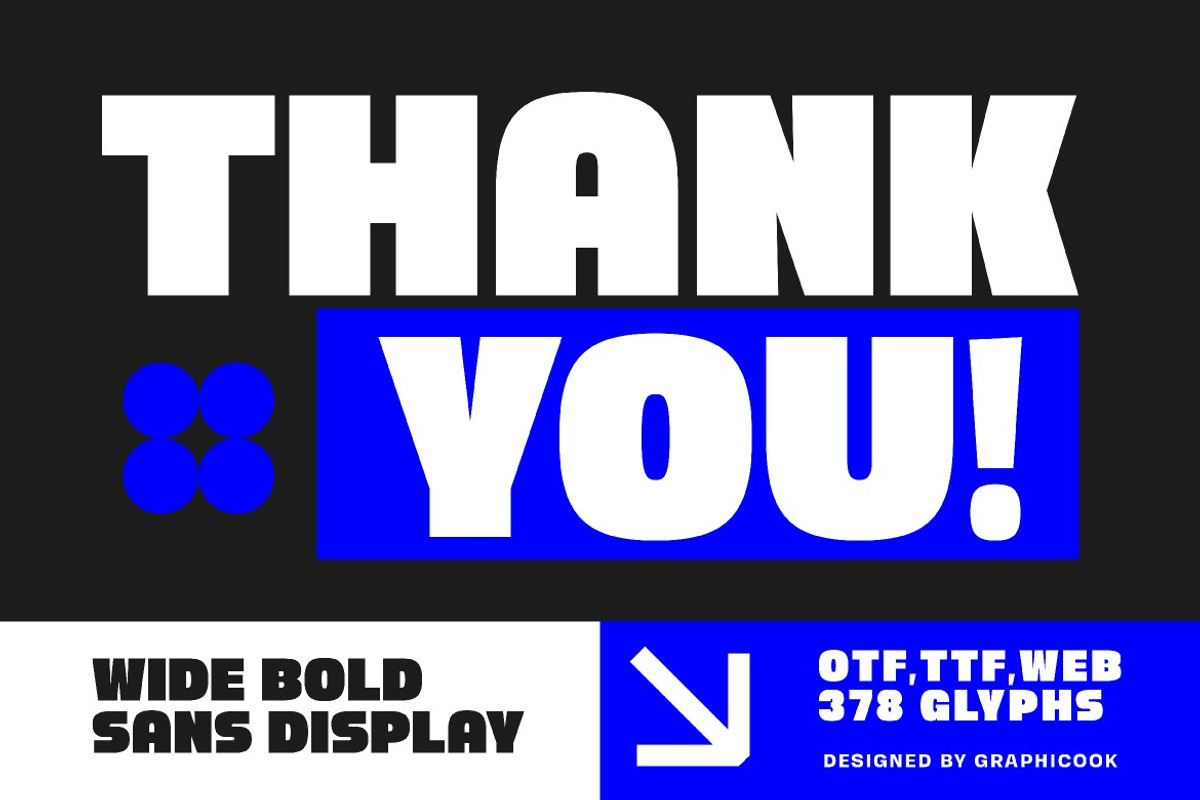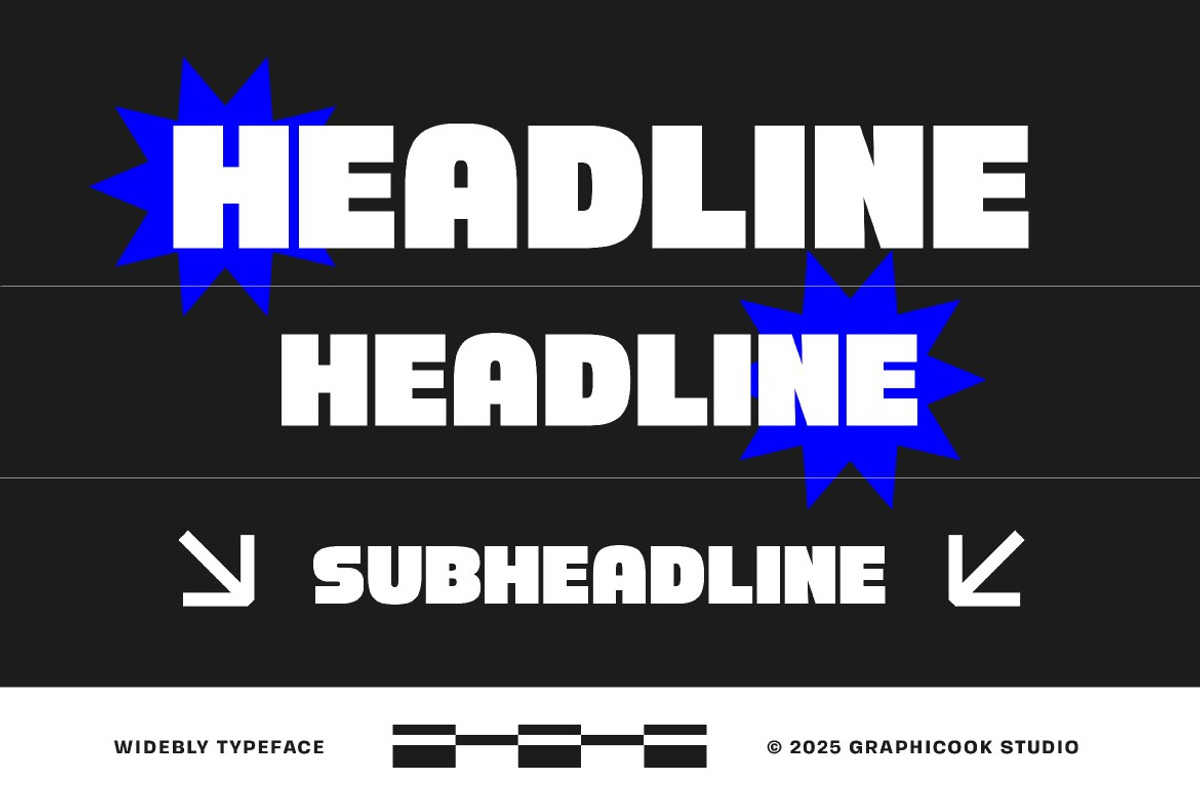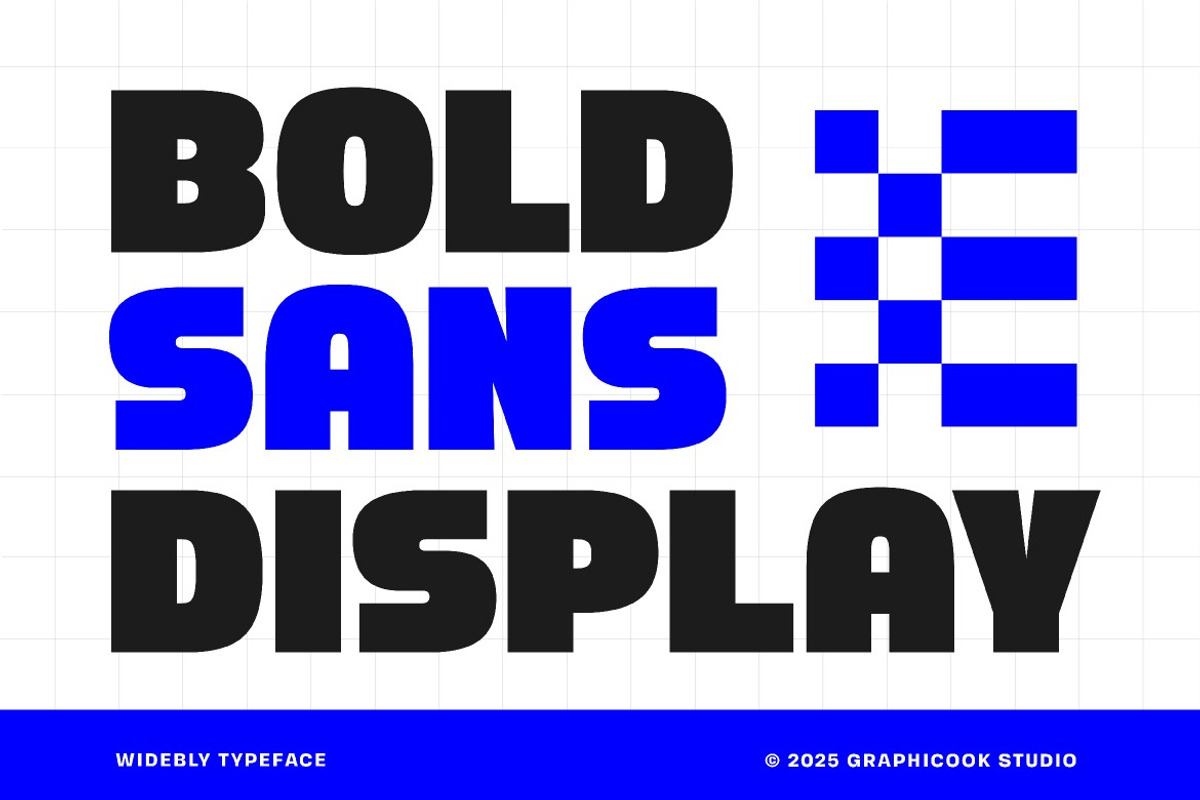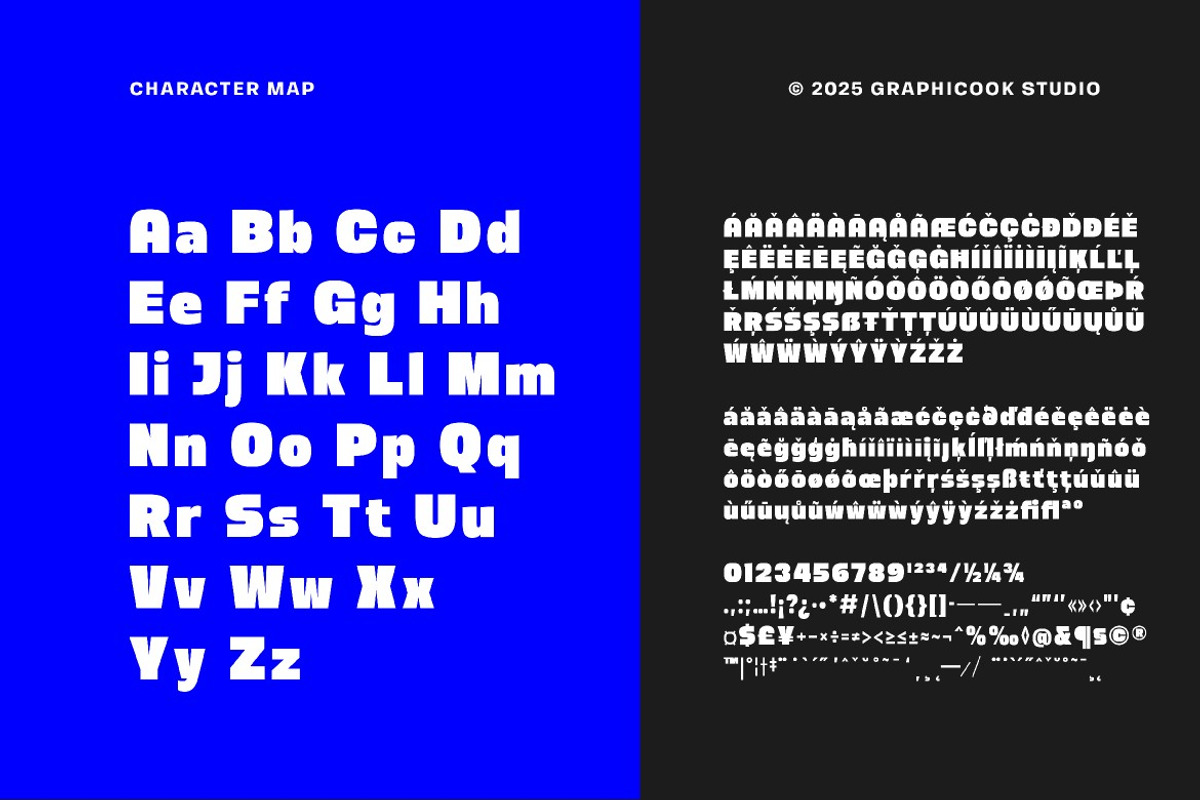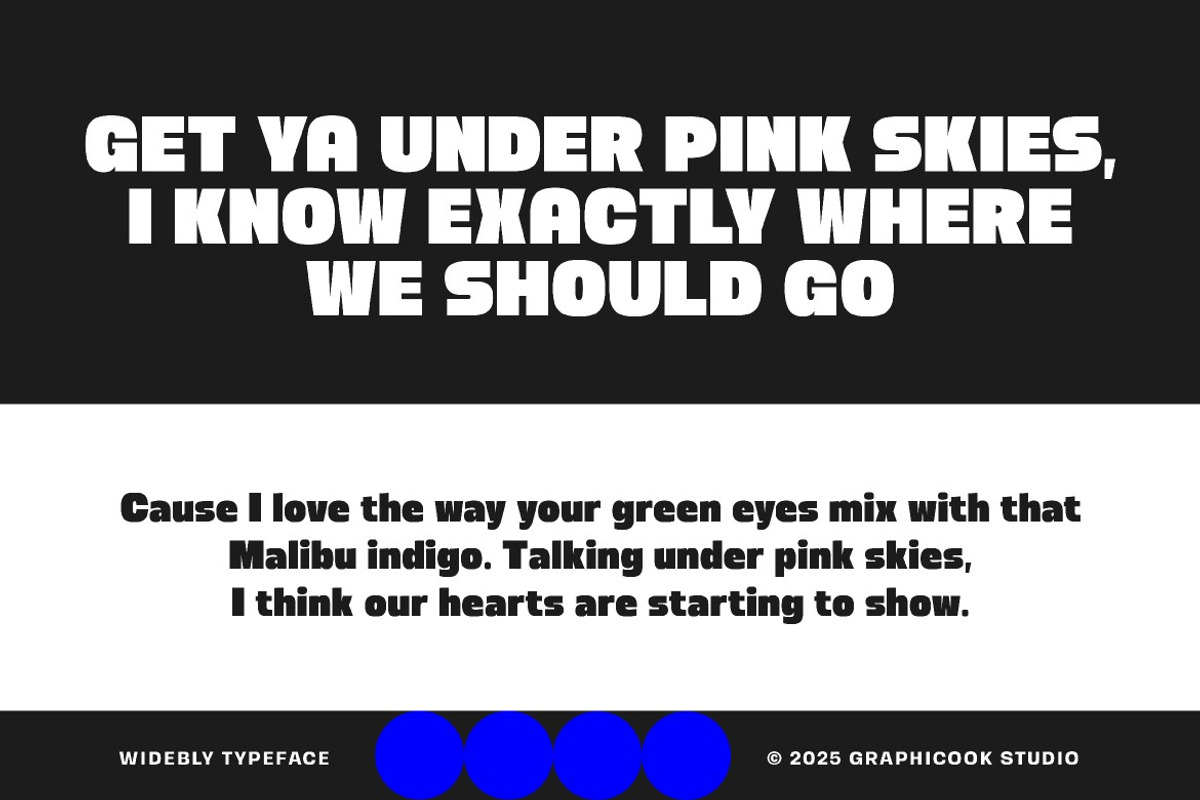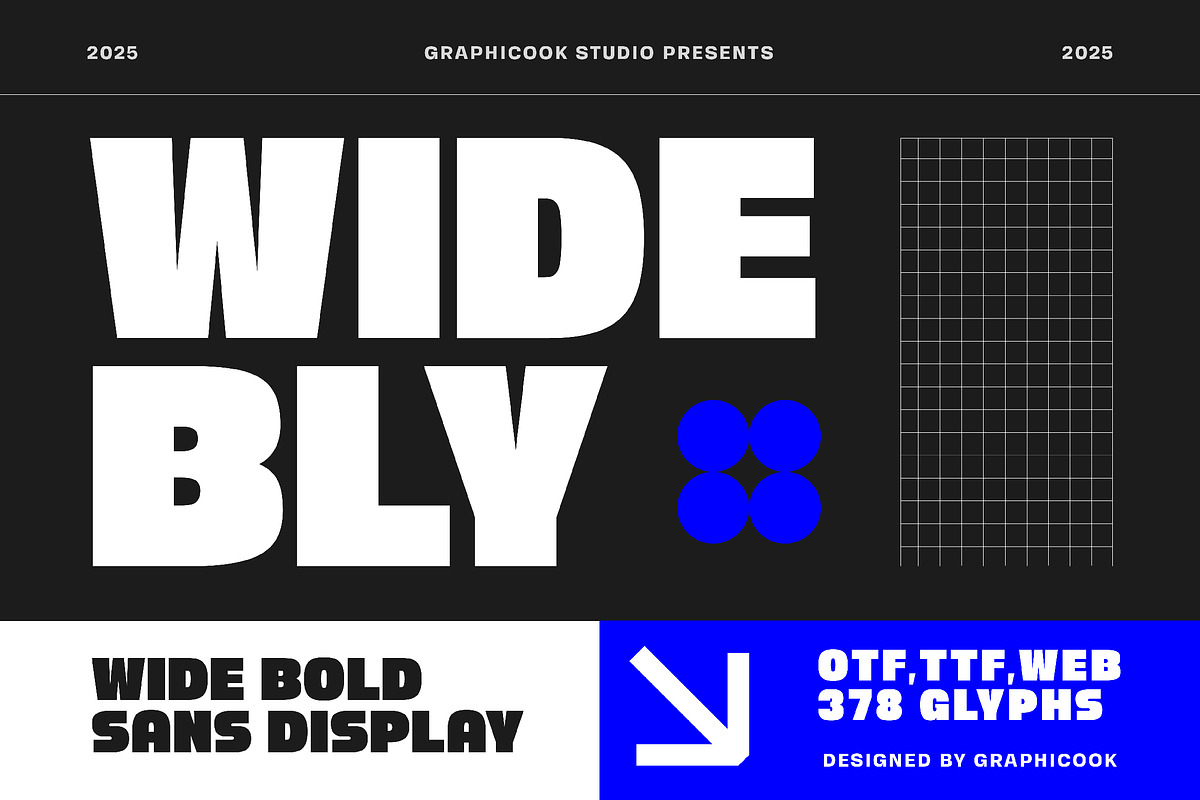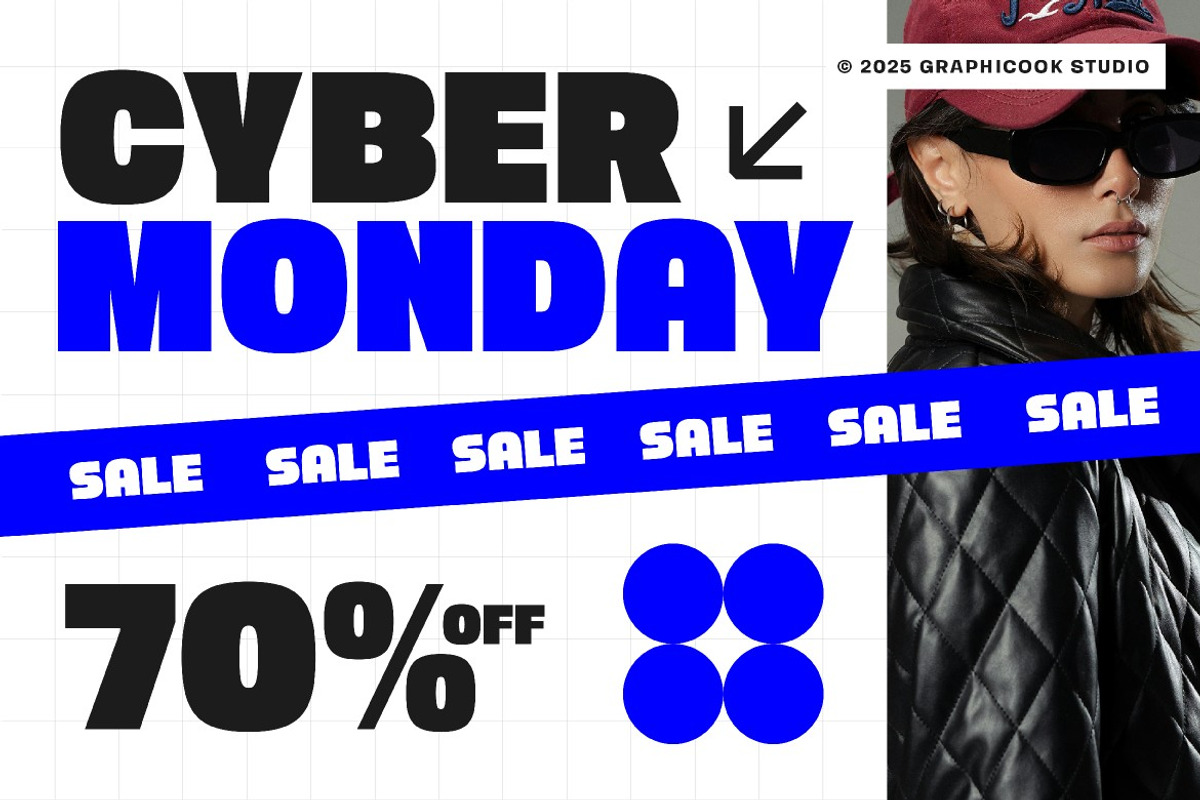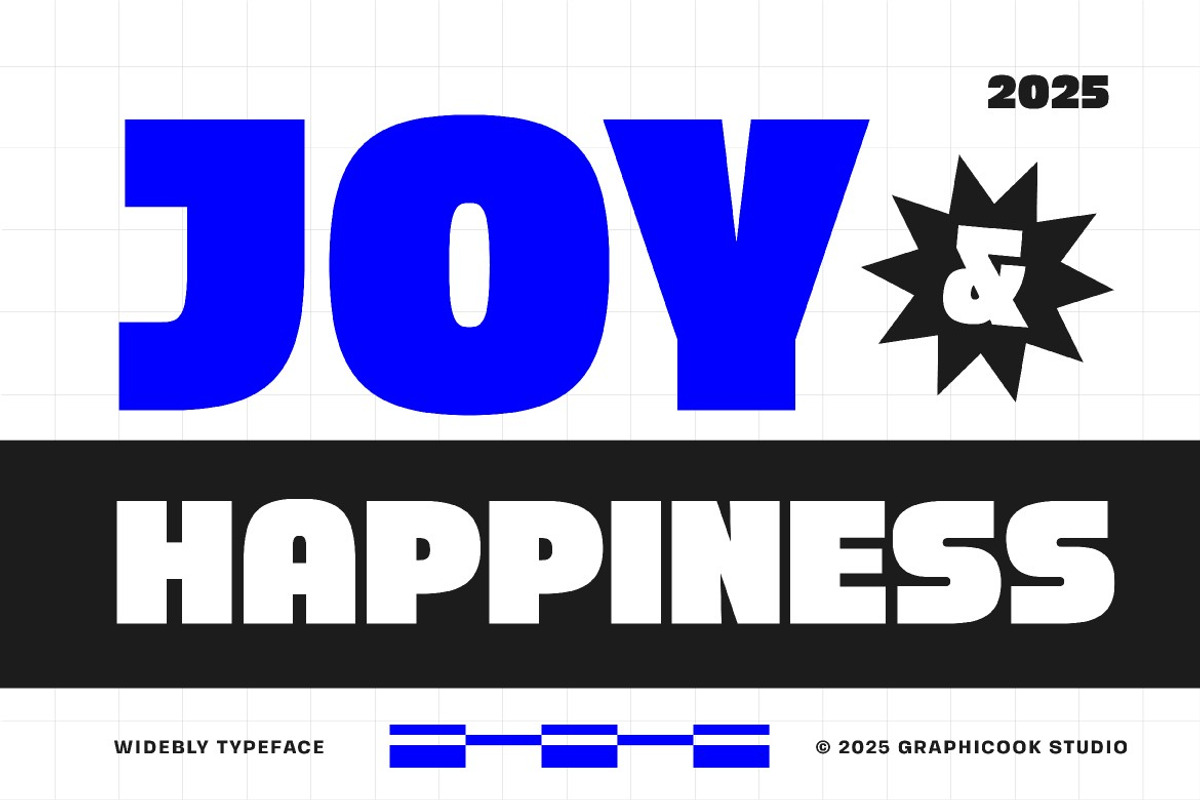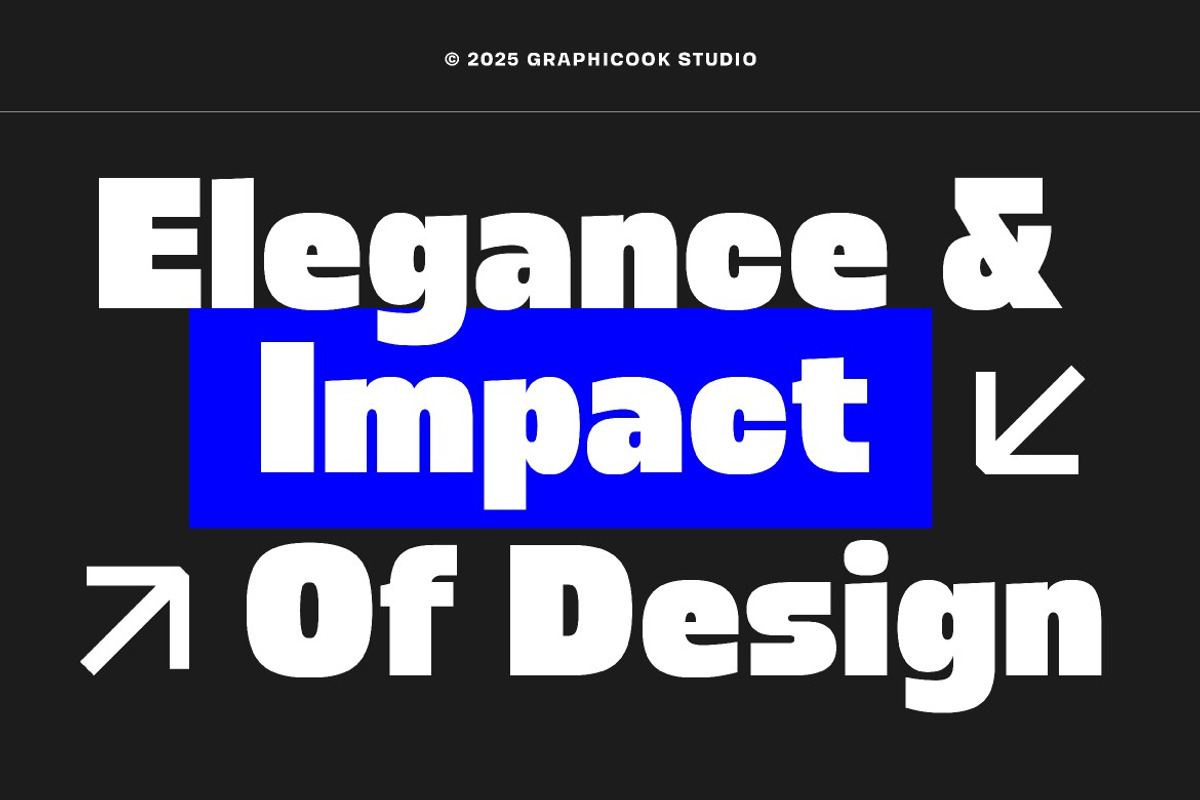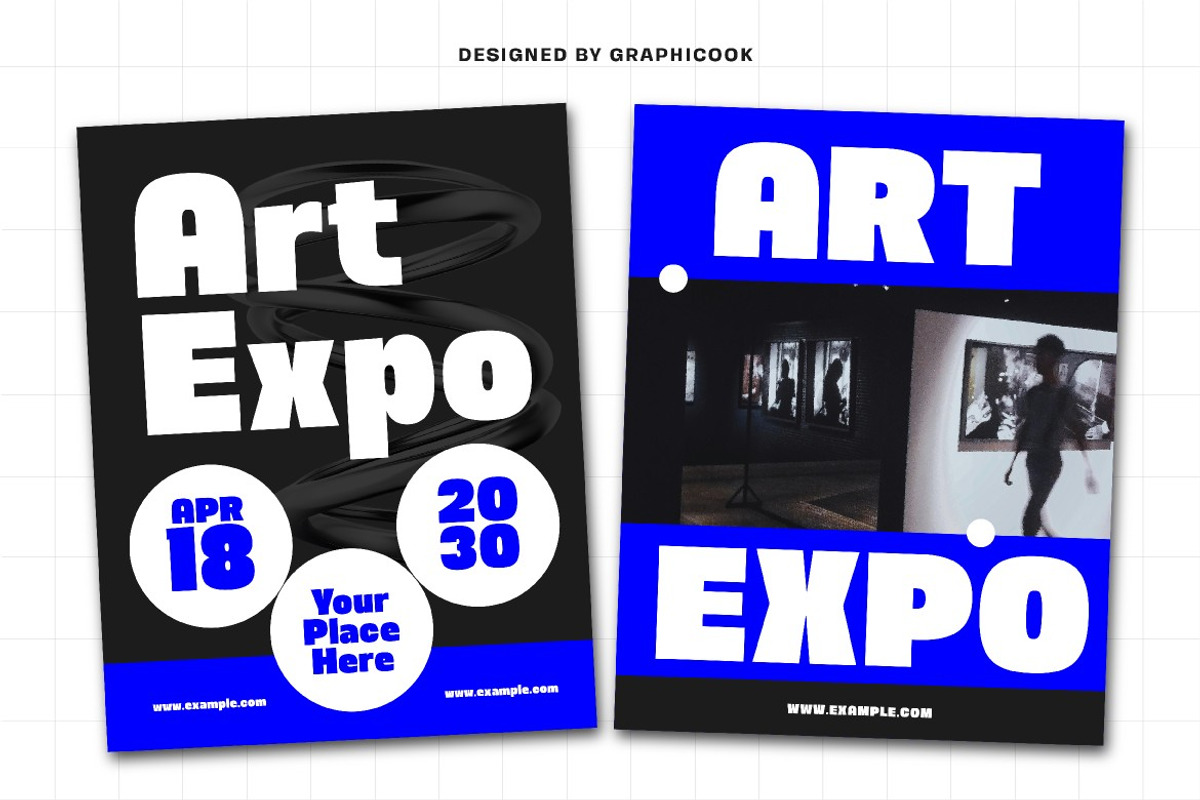
Widebly
Widebly is a bold and wide sans-serif font. As a basic typeface, it’s suitable for all design projects
Widebly is perfect for headlines, logotypes, magazines, packaging, quotes, movies, games, cover albums, book covers, and flyers, it's a perfect solution for creating eye-catching designs that stand out in any context.